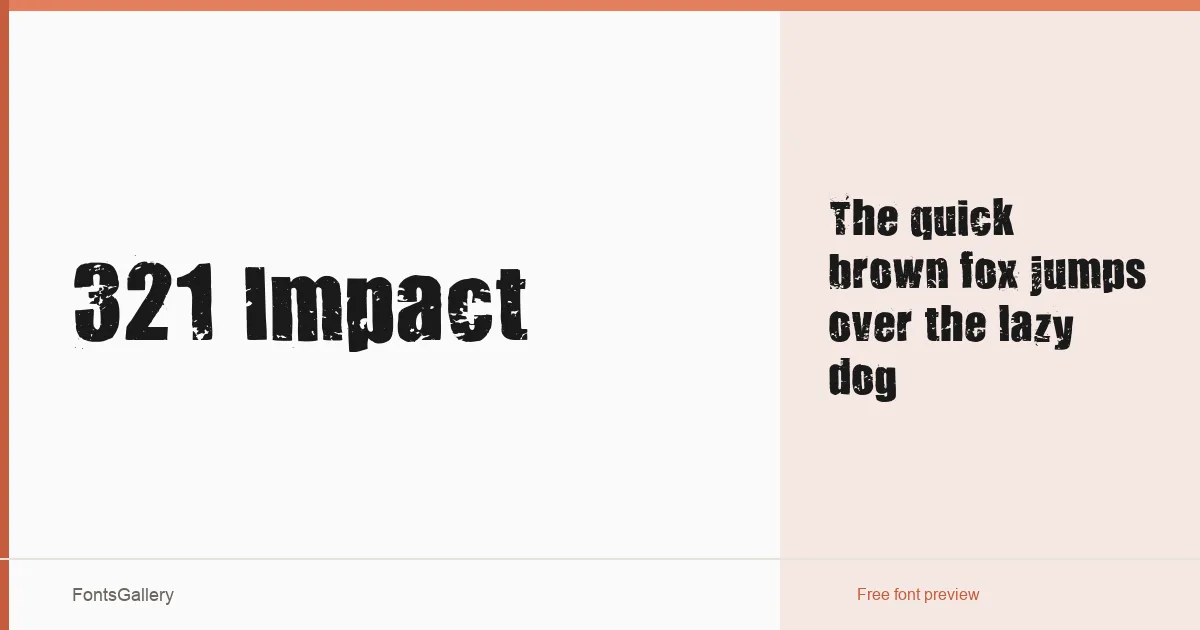
About 321 Impact Font
321 Impact is a display typeface designed by Kenny Redman, crafted to command attention with its bold, characterful presence. Rooted in a vintage aesthetic with a raw, rustic edge, this font brings an authentic grunge sensibility to any project. It is a strong choice for creatives seeking a typeface with grit, personality, and visual punch.
321 Impact features letterforms that embody a bold, vintage-inspired style with rugged, grunge-influenced textures and rustic detailing. The display category construction ensures each character carries strong visual weight, making it impossible to overlook. The worn, distressed qualities of its design give it an organic, handcrafted feel that distinguishes it from clean, conventional display fonts.
321 Impact is ideally suited for posters, advertisements, headlines, branding projects, and t-shirt designs where a striking, bold statement is required. Its vintage and grunge character makes it particularly effective for brands and campaigns that want to convey an edgy, authentic, or retro-inspired identity. For font pairings, it works well alongside the clean neutrality of Helvetica or the complementary character of Aresink.